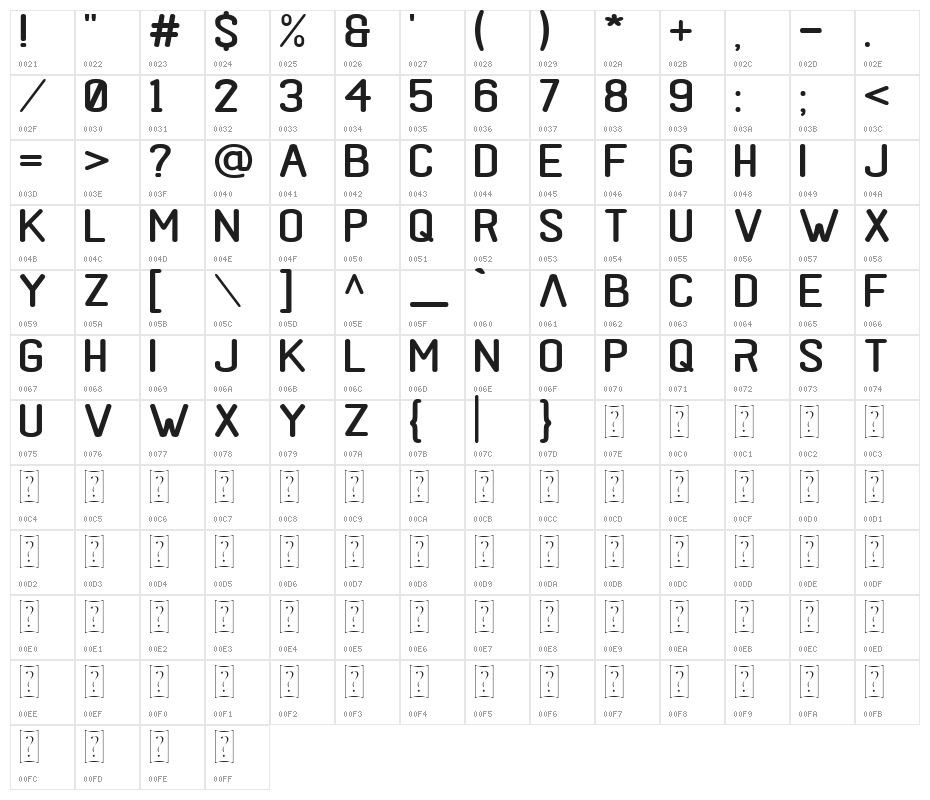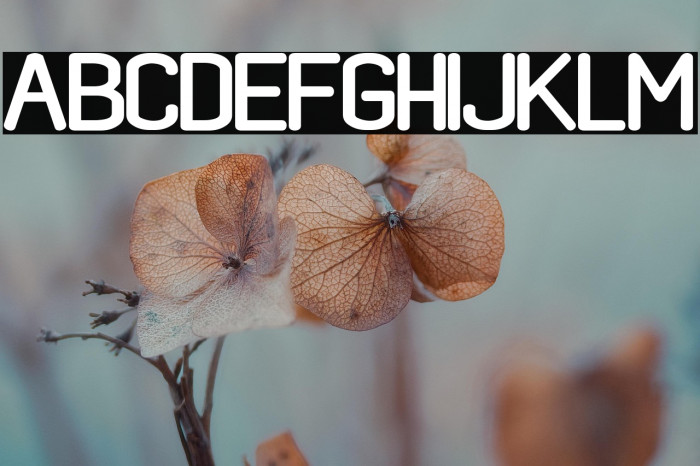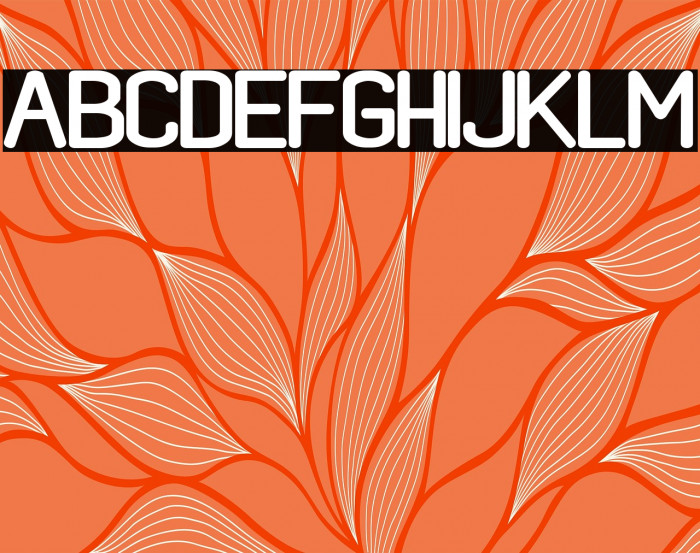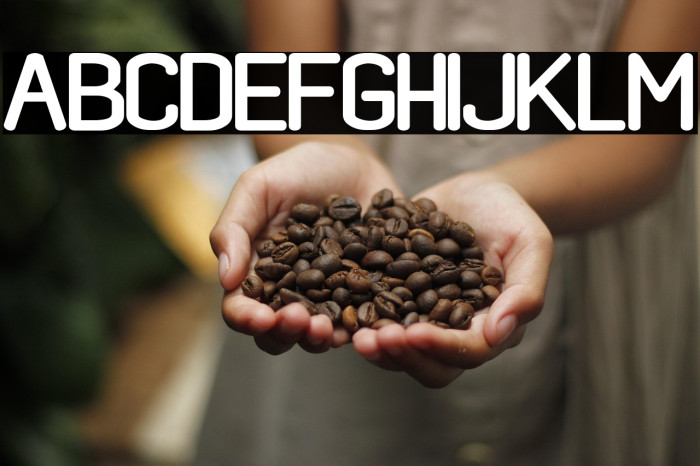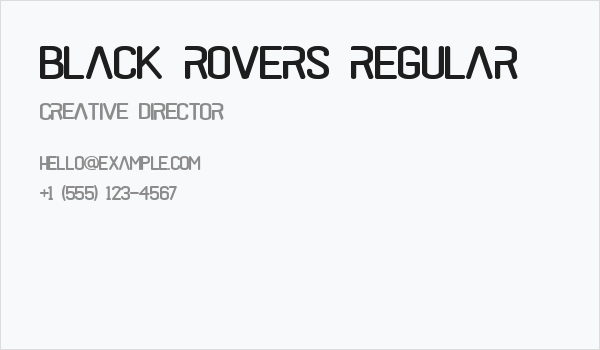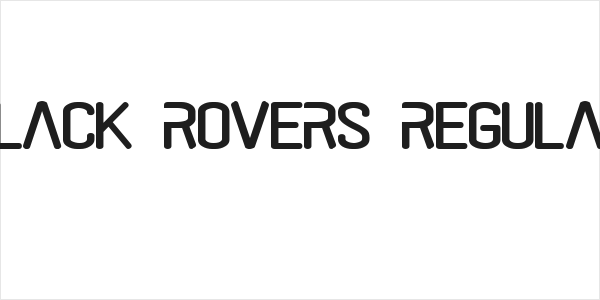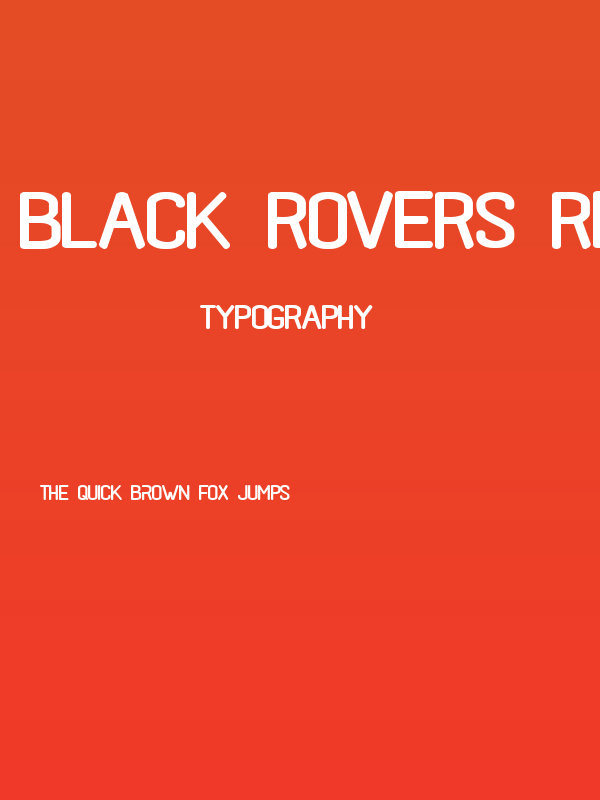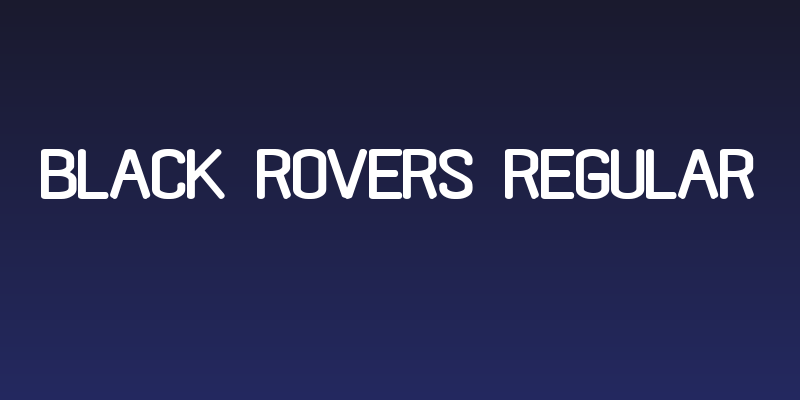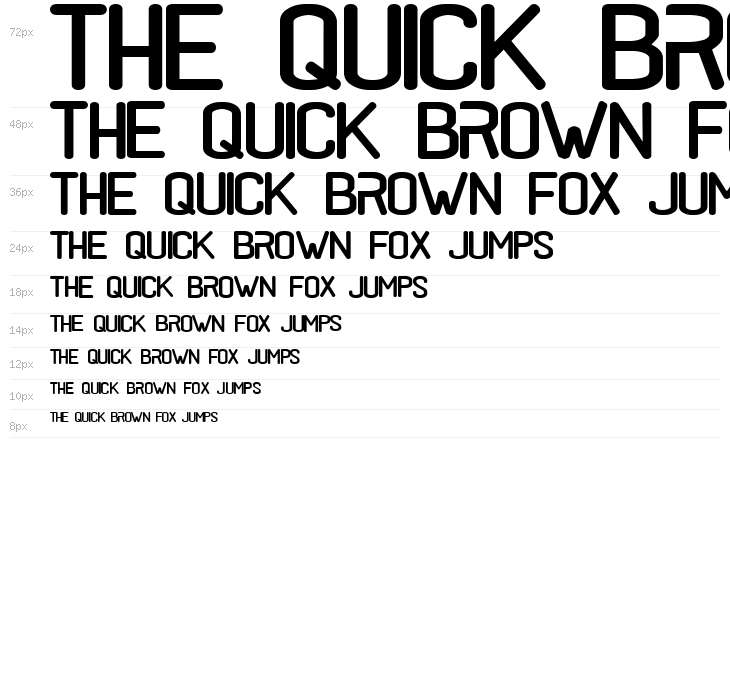
black rovers regular Font
black rovers regular Description
This font features a bold, rounded sans-serif style with a modern and clean aesthetic. The characters are uniformly thick, providing a consistent and solid appearance. The rounded edges give it a friendly and approachable feel, making it suitable for a variety of applications. The numerals and special characters maintain the same rounded and bold characteristics, ensuring a cohesive look across all glyphs. The overall design is straightforward yet impactful, ideal for making text stand out without being overly decorative.
| Use Case | Headlines, Logos, Signage |
| Proposed Projects | Ideal for branding, signage, headlines, and digital content where a modern and approachable feel is desired. |